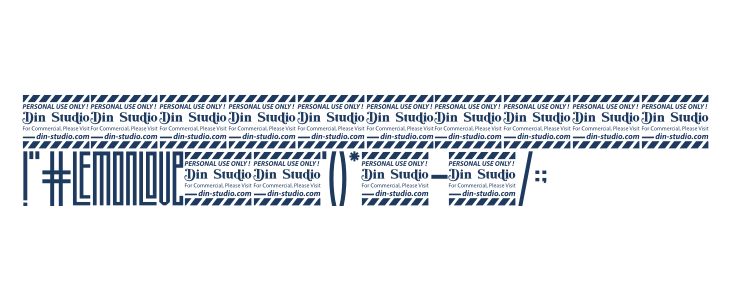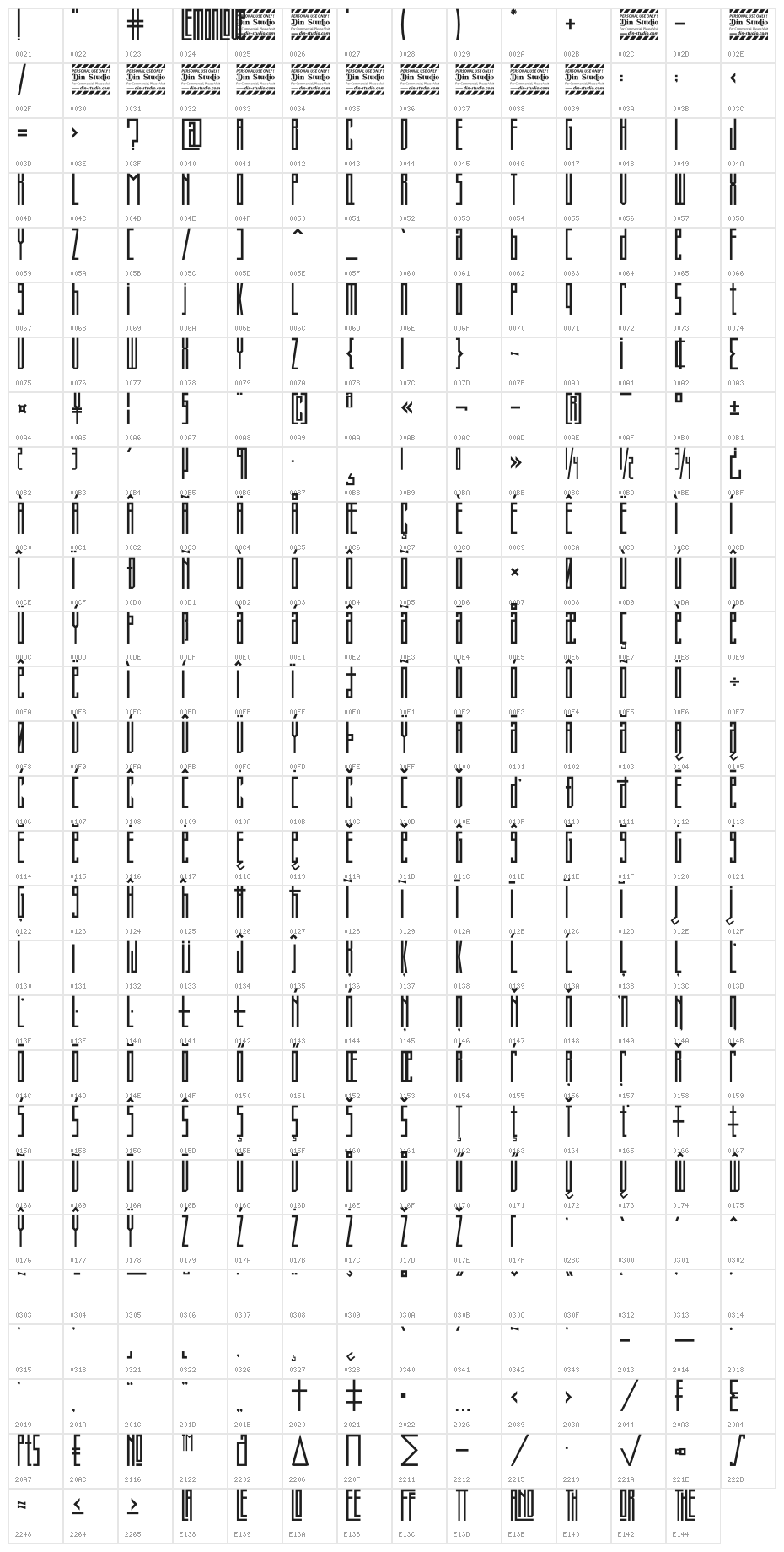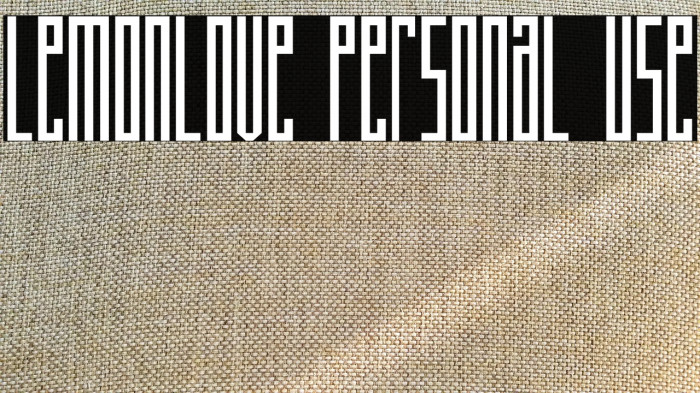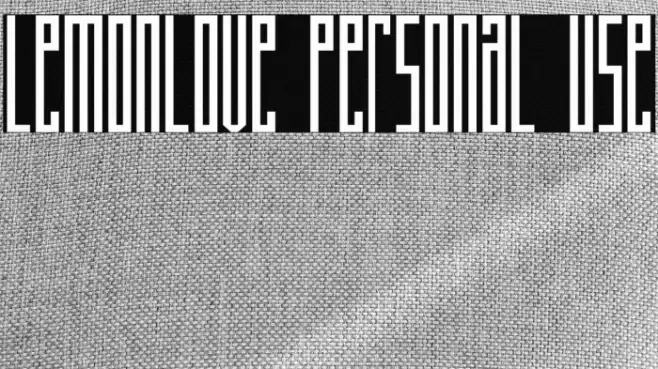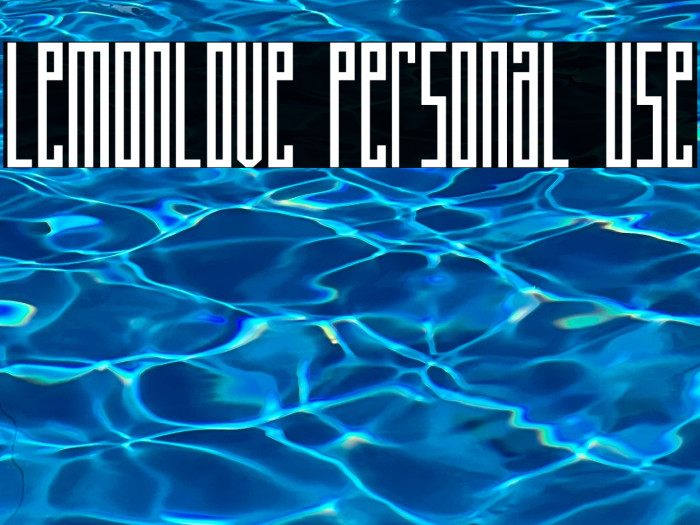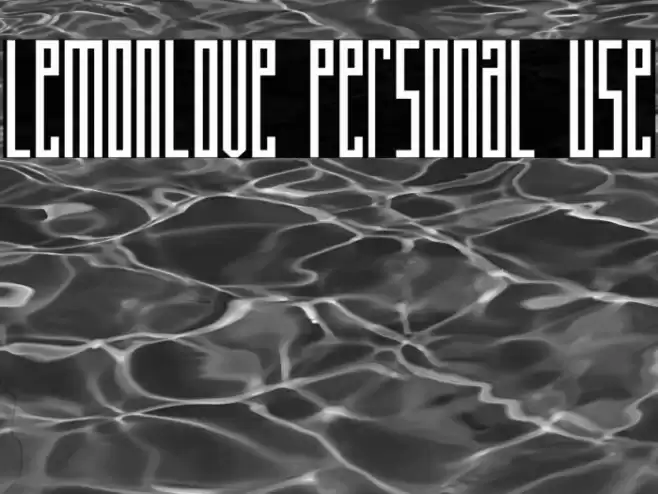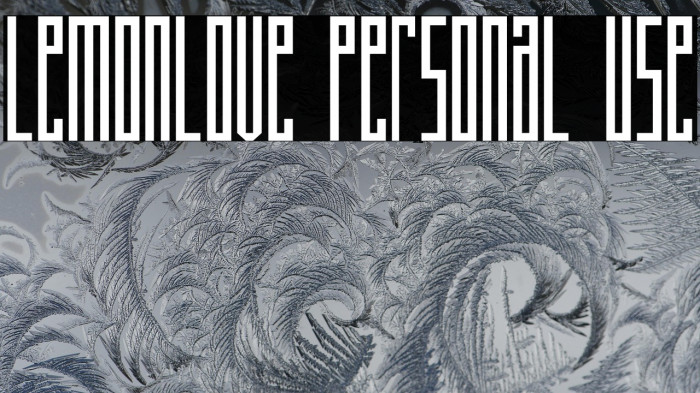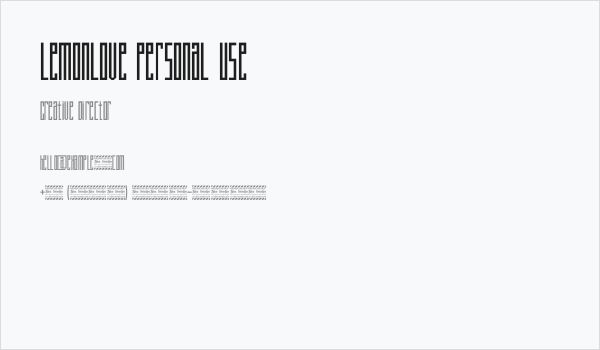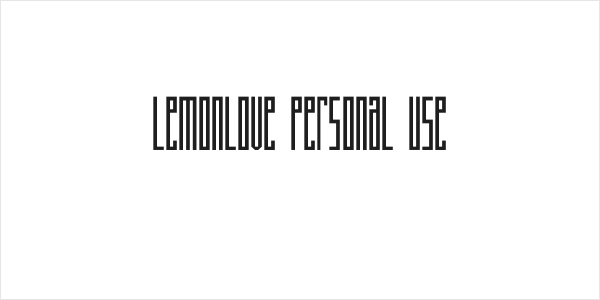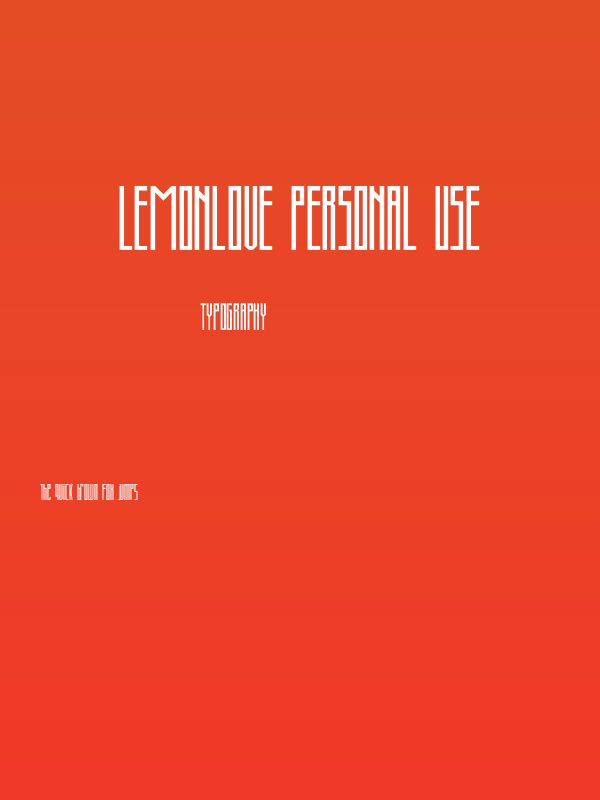
Lemonlove Personal Use Font
Lemonlove Personal Use Description
This font features a highly condensed and elongated style with a modern and decorative flair. The characters are tall and narrow, with a consistent stroke width that gives it a uniform appearance. The uppercase and lowercase letters maintain a similar height, creating a cohesive look. The numerals and special characters follow the same design principles, ensuring a seamless integration across different text elements. The overall aesthetic is bold and striking, making it suitable for attention-grabbing designs. The font's unique structure and geometric shapes lend it a contemporary and artistic feel.
| Proposed Projects | Ideal for posters, headlines, branding, and artistic projects that require a bold statement. |